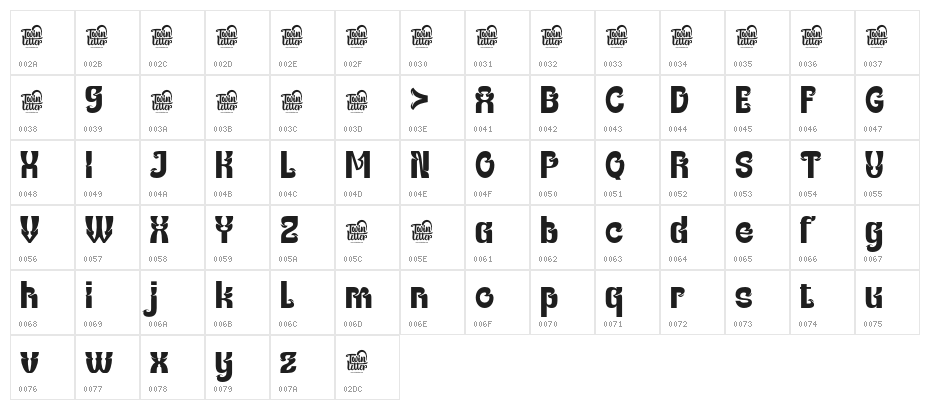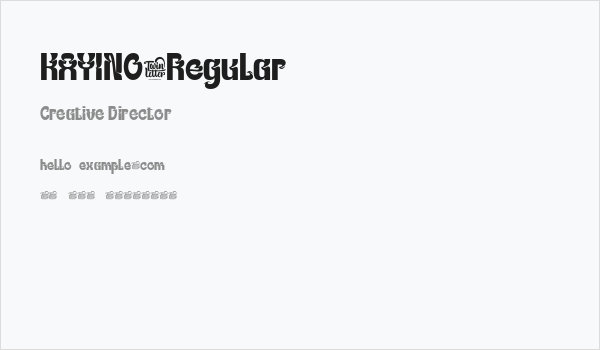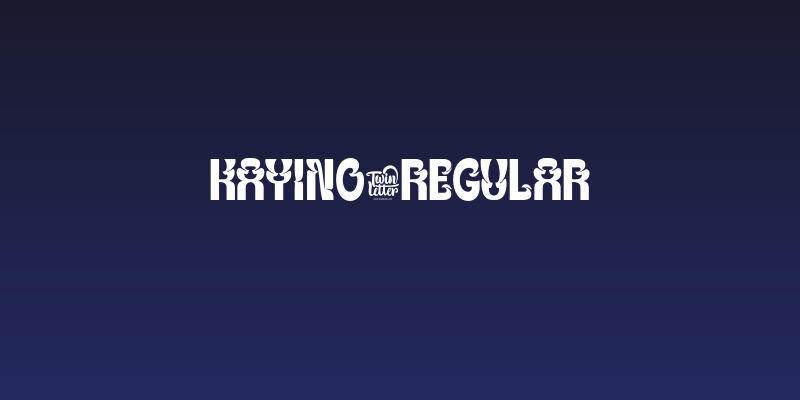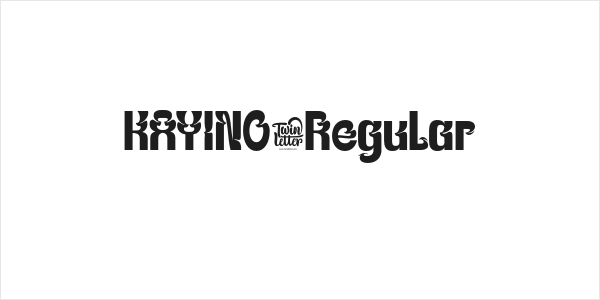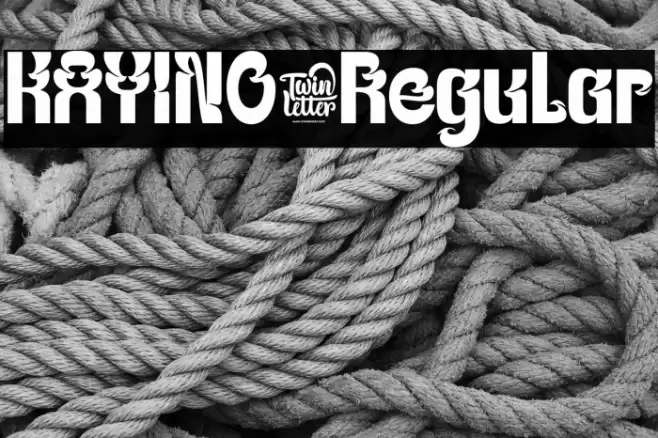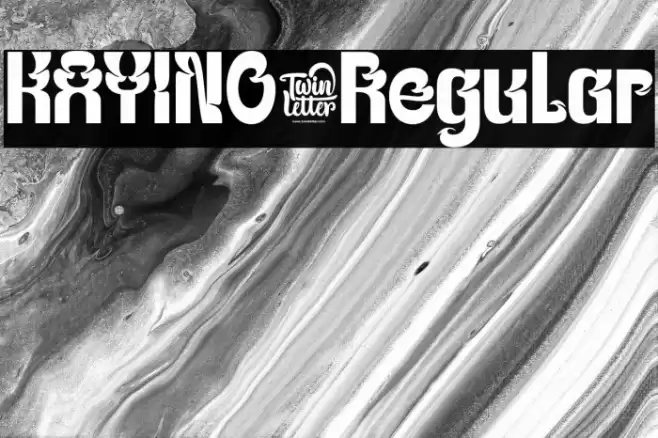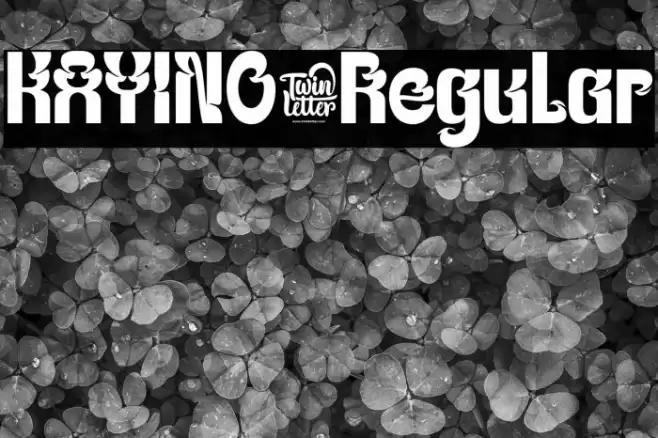
KAYINO-Regular Font
KAYINO-Regular Description
This font exhibits a bold and decorative style, characterized by its unique and artistic flair. The letters are crafted with intricate curves and flourishes, giving it a distinct and eye-catching appearance. The uppercase and lowercase letters maintain a consistent design theme, with some characters featuring playful swirls and extensions. The numbers and special characters are designed to match the overall aesthetic, ensuring a cohesive look across all text elements. This font's boldness and decorative elements make it ideal for projects that require a strong visual impact.
| Proposed Projects | Ideal for posters, branding, logos, and creative design projects that require a strong visual impact. |